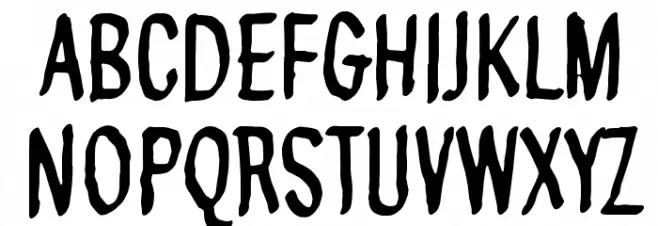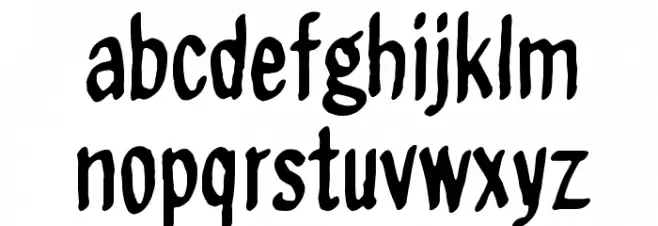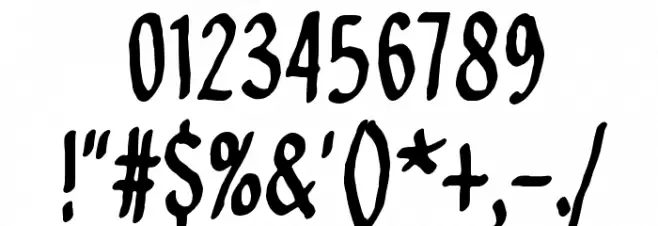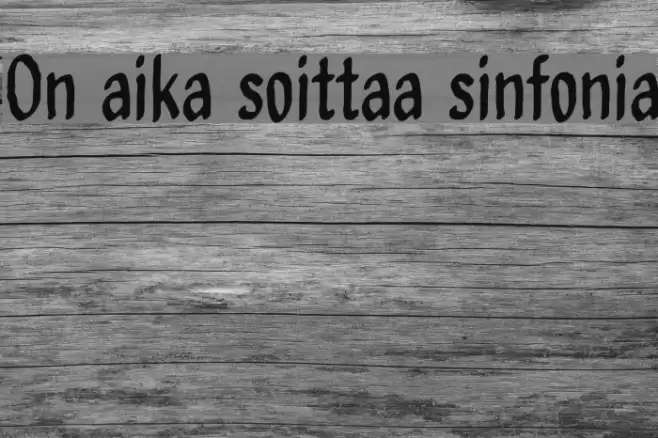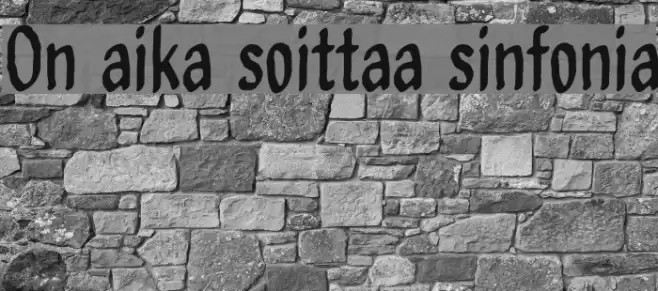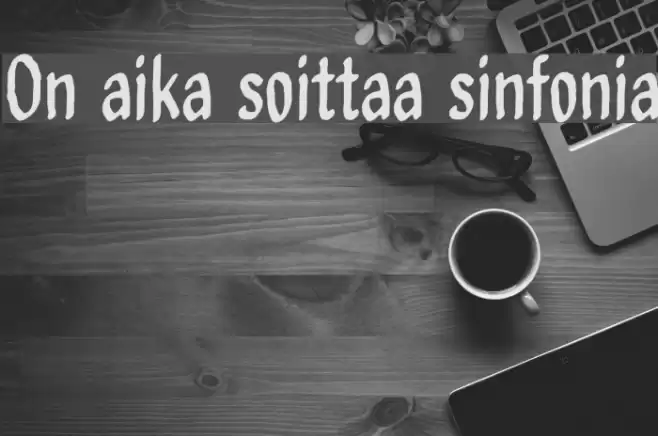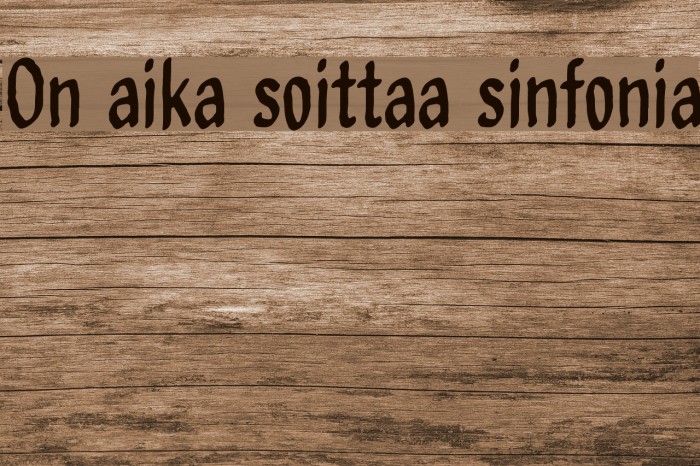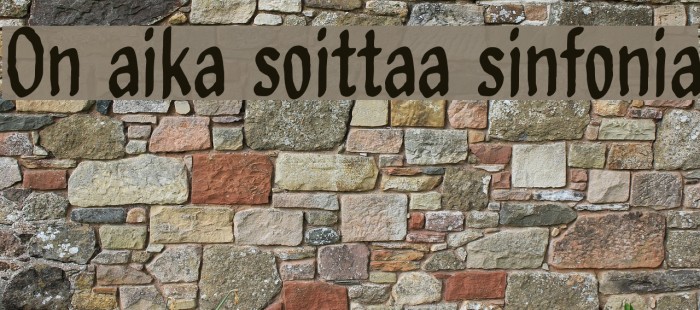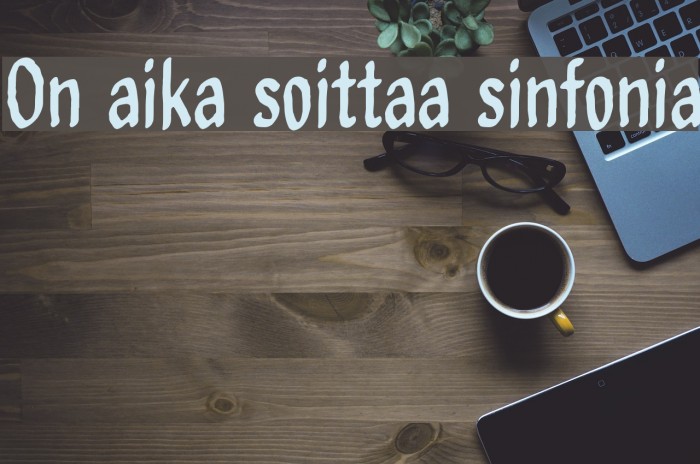
On aika soittaa sinfonia
This font exhibits a playful and hand-drawn style, characterized by its uneven strokes and slightly irregular letterforms. The uppercase and lowercase letters maintain a consistent, casual appearance, with a slight tilt that adds to its informal charm. The numbers and special characters follow the same whimsical design, making the font suitable for creative and artistic projects. Its unique style is reminiscent of hand-painted signage or children's book illustrations, offering a friendly and approachable aesthetic.
A playful, hand-drawn font with uneven strokes and a casual style.
- Proposed Projects: Ideal for children's books, creative posters, greeting cards, and playful branding.
- Overall Style: Casual, Playful
- Use Case: Headlines, Logos, Creative projects